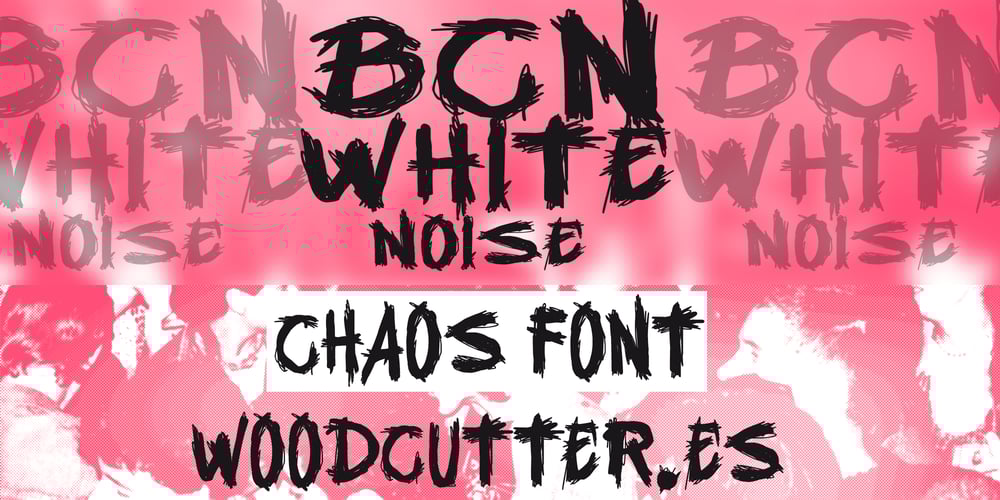
BCN White Noise Font Family was designed by Jordi Manero and published by Woodcutter. BCN White Noise contains 1 styles and family package options. “BCN White Noise” is an uppercase font with scratched letters that exude a disturbing and terrifying look. Each letter appears to have been hand-carved with a knife, creating a chilling and chaotic effect. This typeface is ideal for your horror posters, perfectly capturing an atmosphere of fear and suspense. Its irregular and worn-out strokes convey a sense of chaos and danger, making the text look like it’s straight out of a horror movie scene. “BCN White Noise” is perfect for projects that need a dark and unsettling touch.